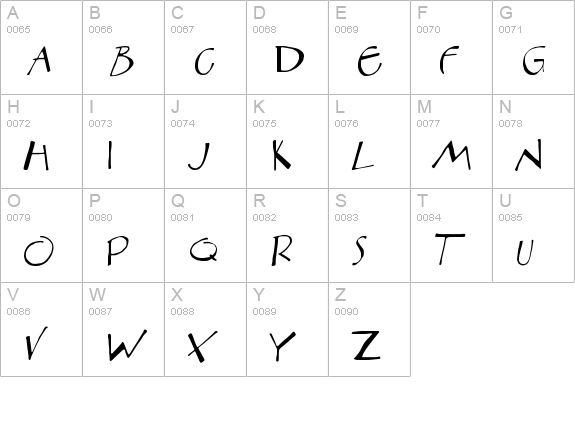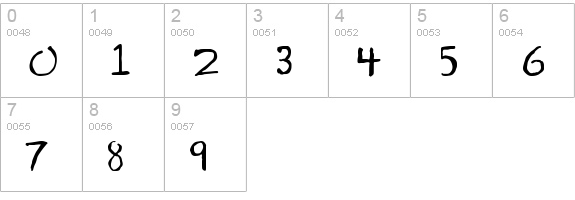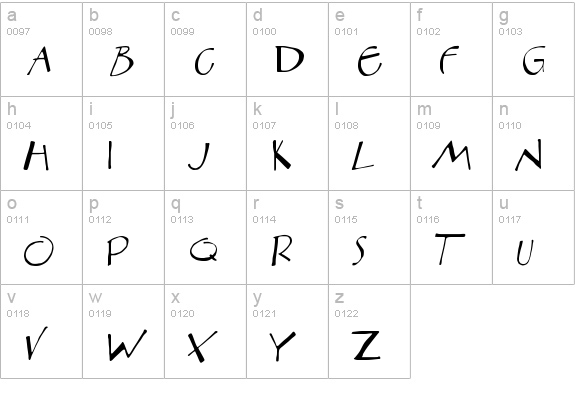
Aberration Font Details
Introducing Aberration font, a striking and modern typeface that is sure to make a bold statement in any design project. This unique font features intricate details and unexpected twists, giving it a truly aberrant and eye-catching appearance. With its sharp angles and unconventional shapes, Aberration font is perfect for adding a touch of edginess to logos, headlines, posters, and more. What makes Aberration font even more appealing is that it is available for free download at FontsMarket.com. That's right, you can get your hands on this innovative font without having to spend a dime. So why wait? Add a touch of the unexpected to your designs with Aberration font today!